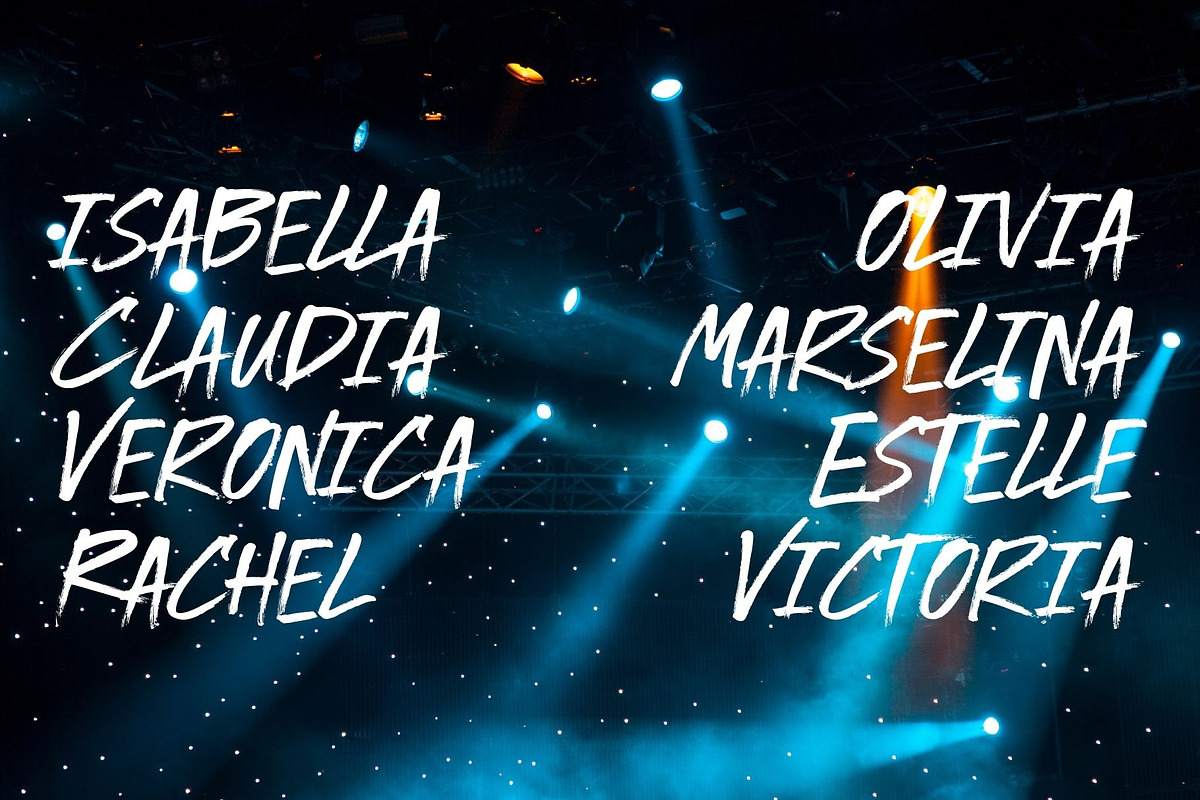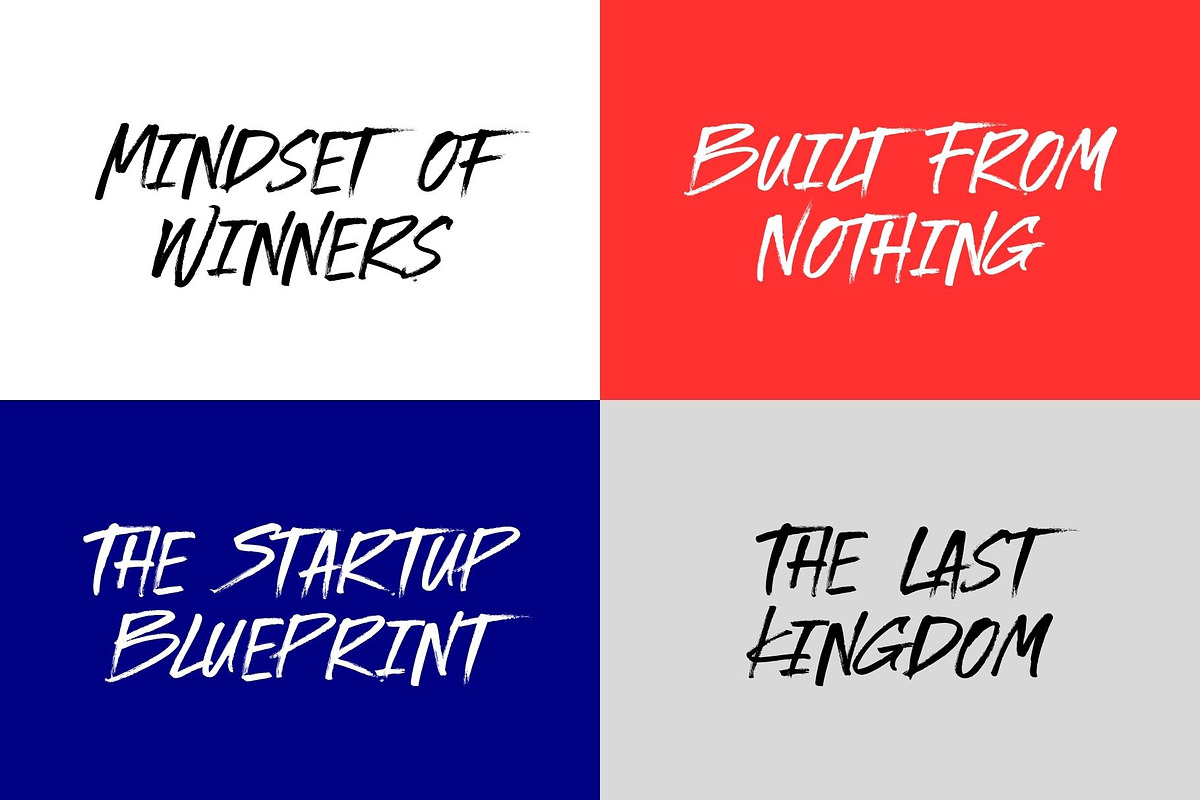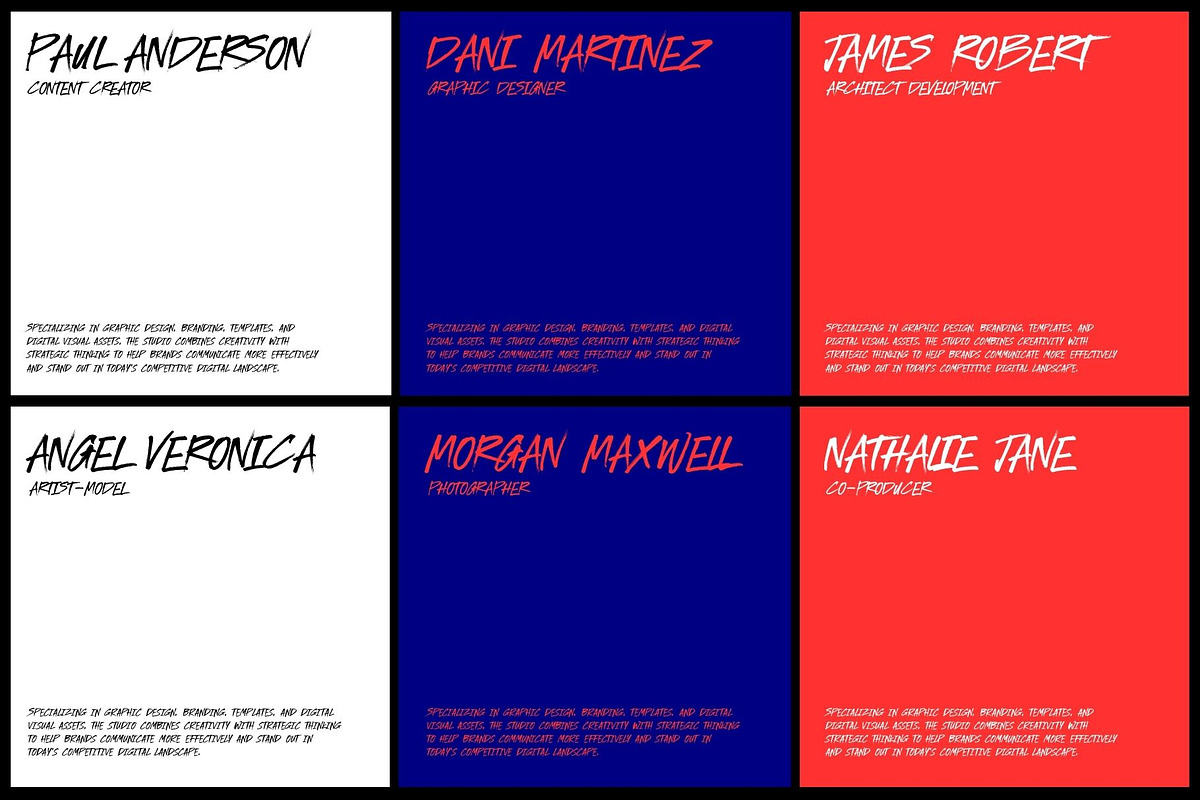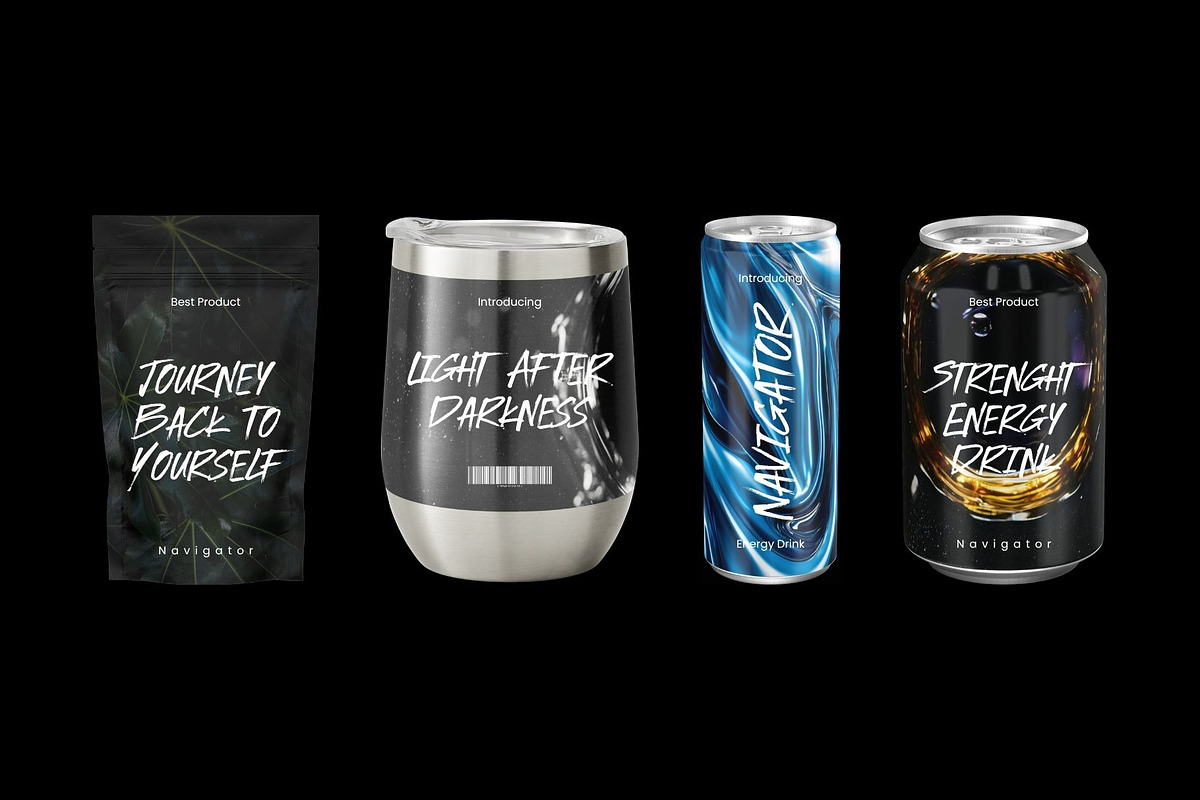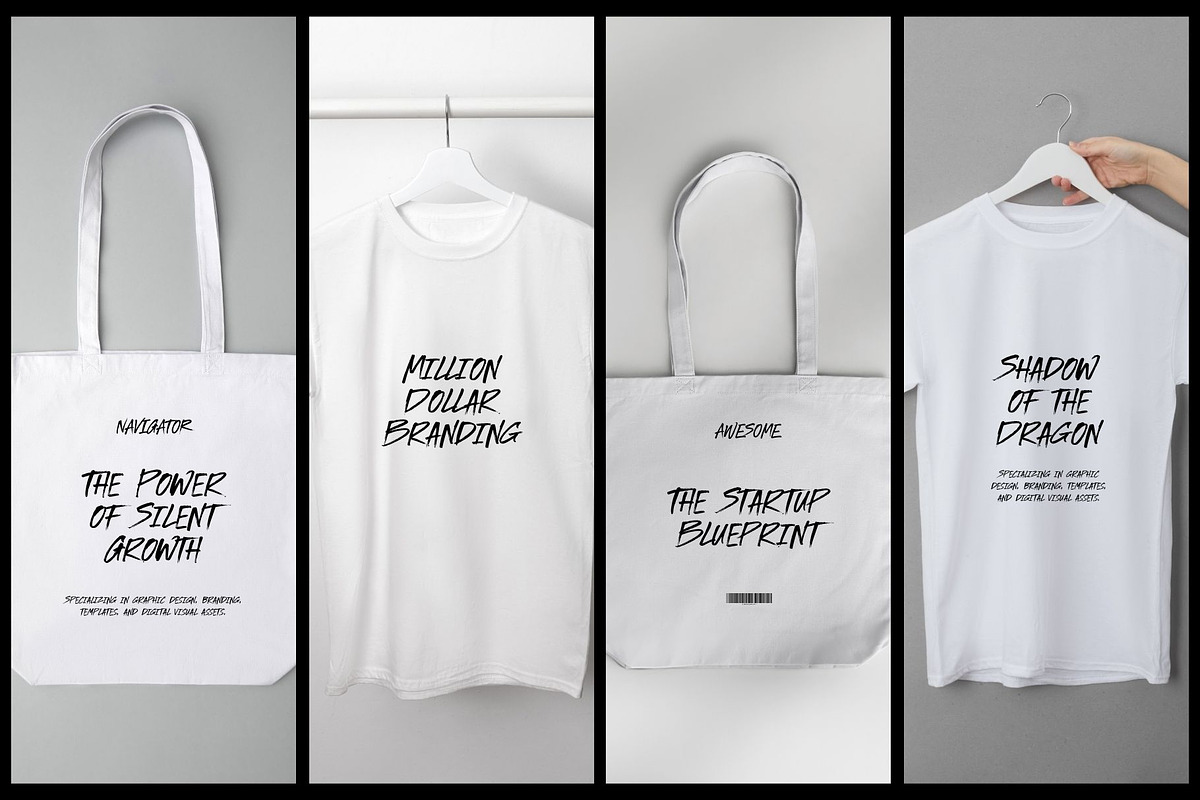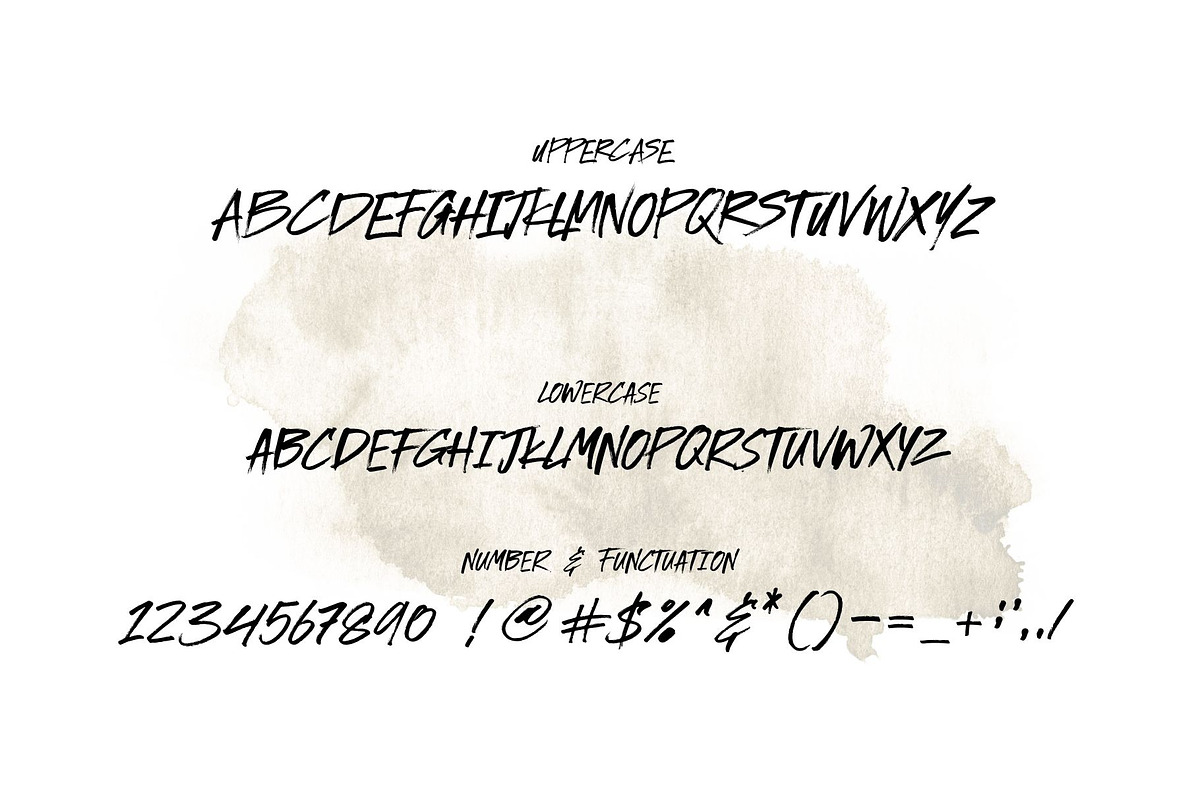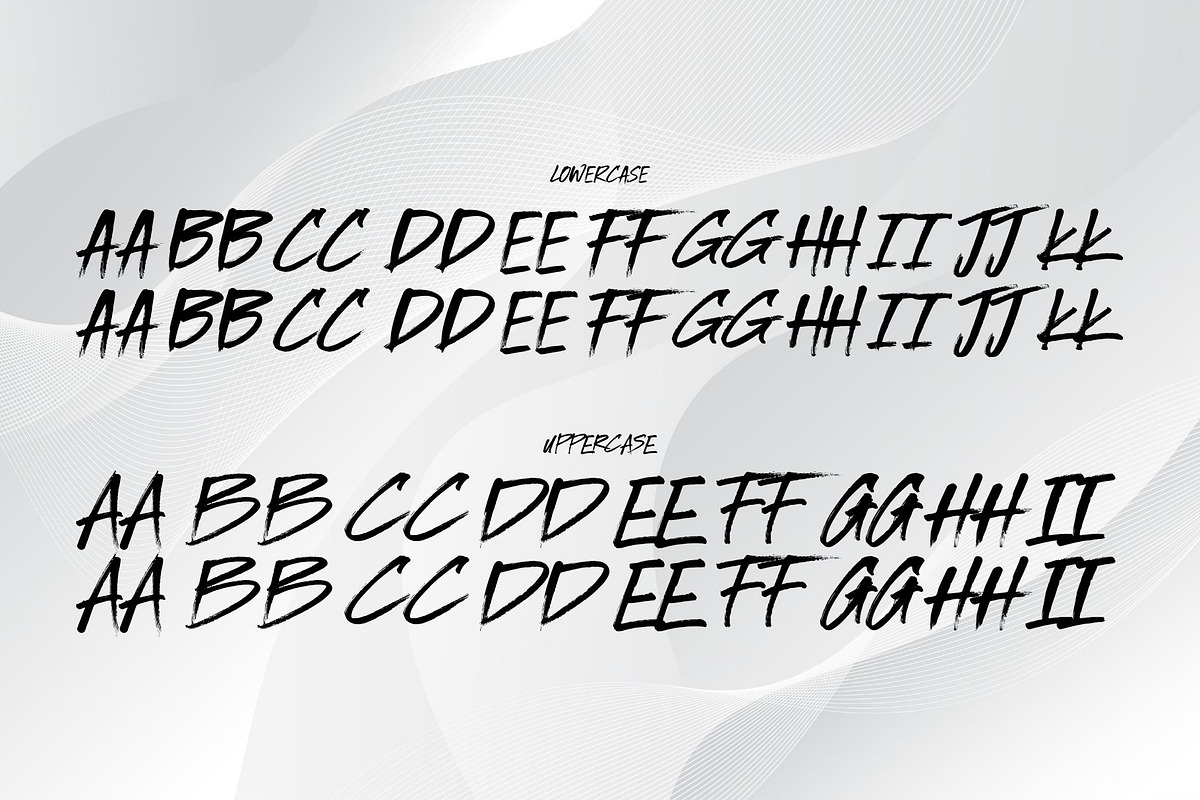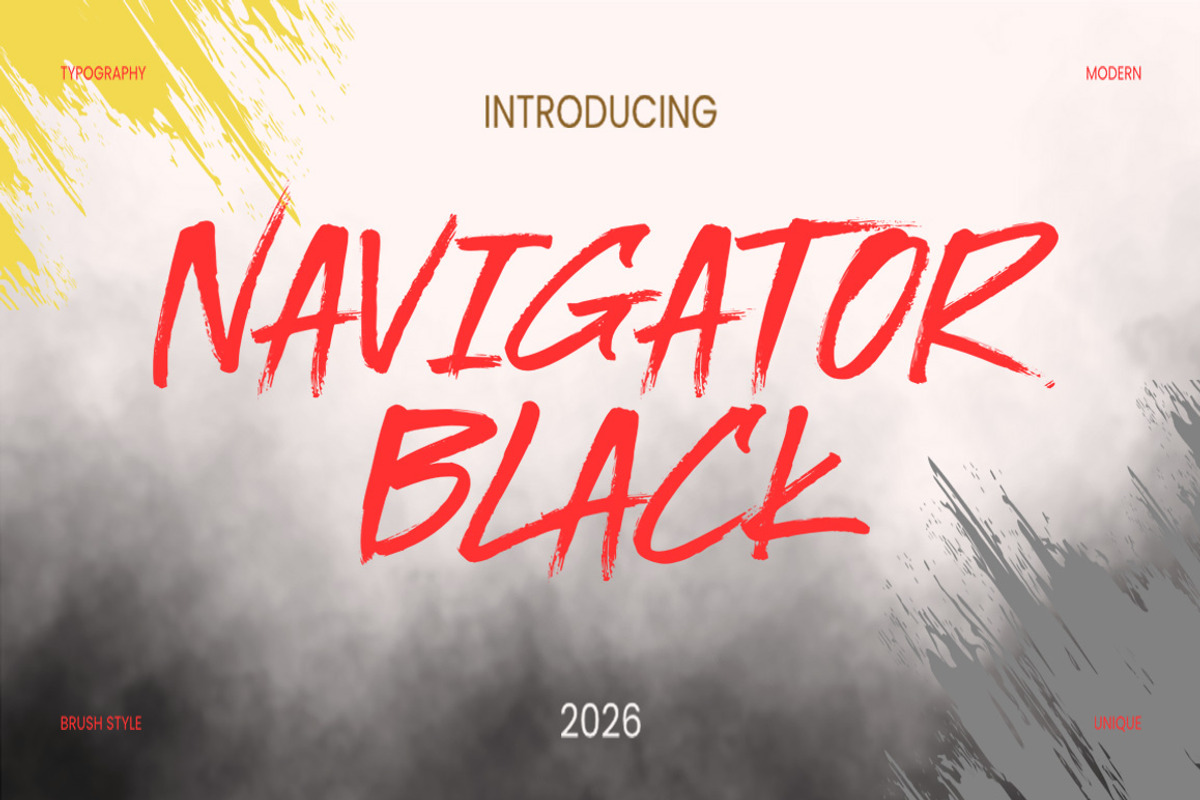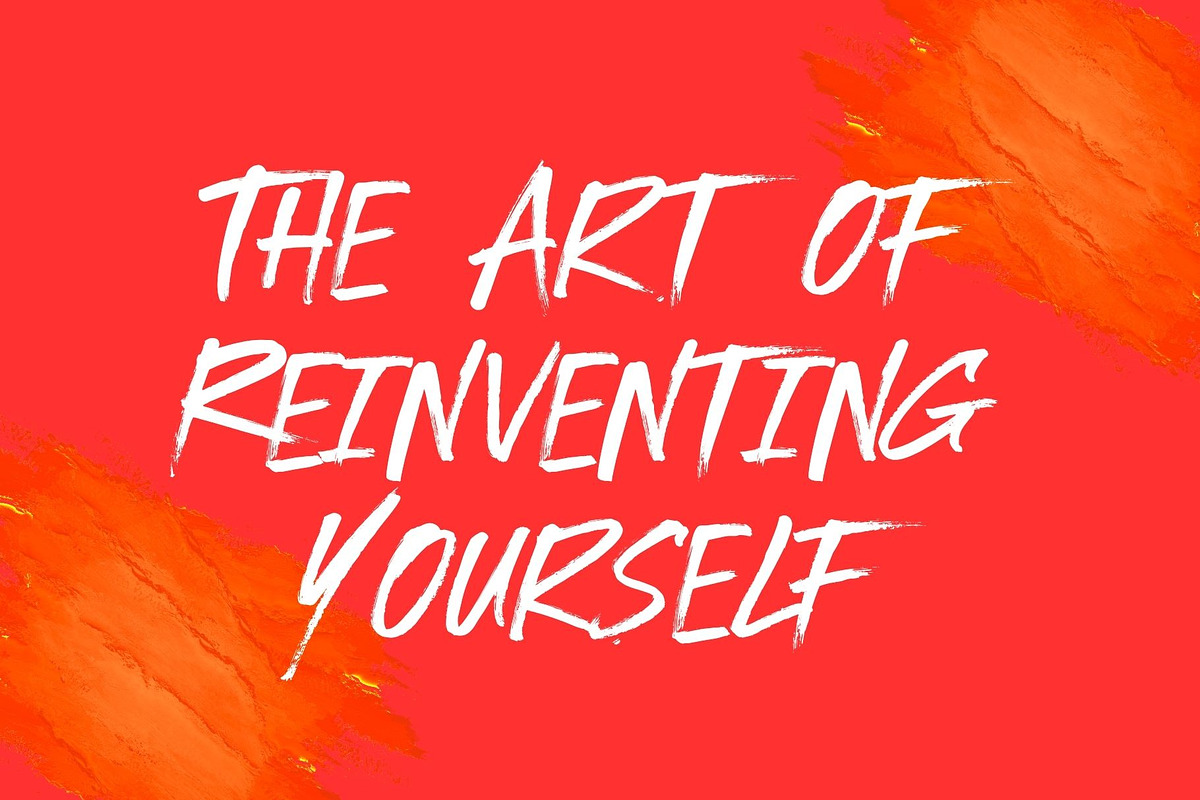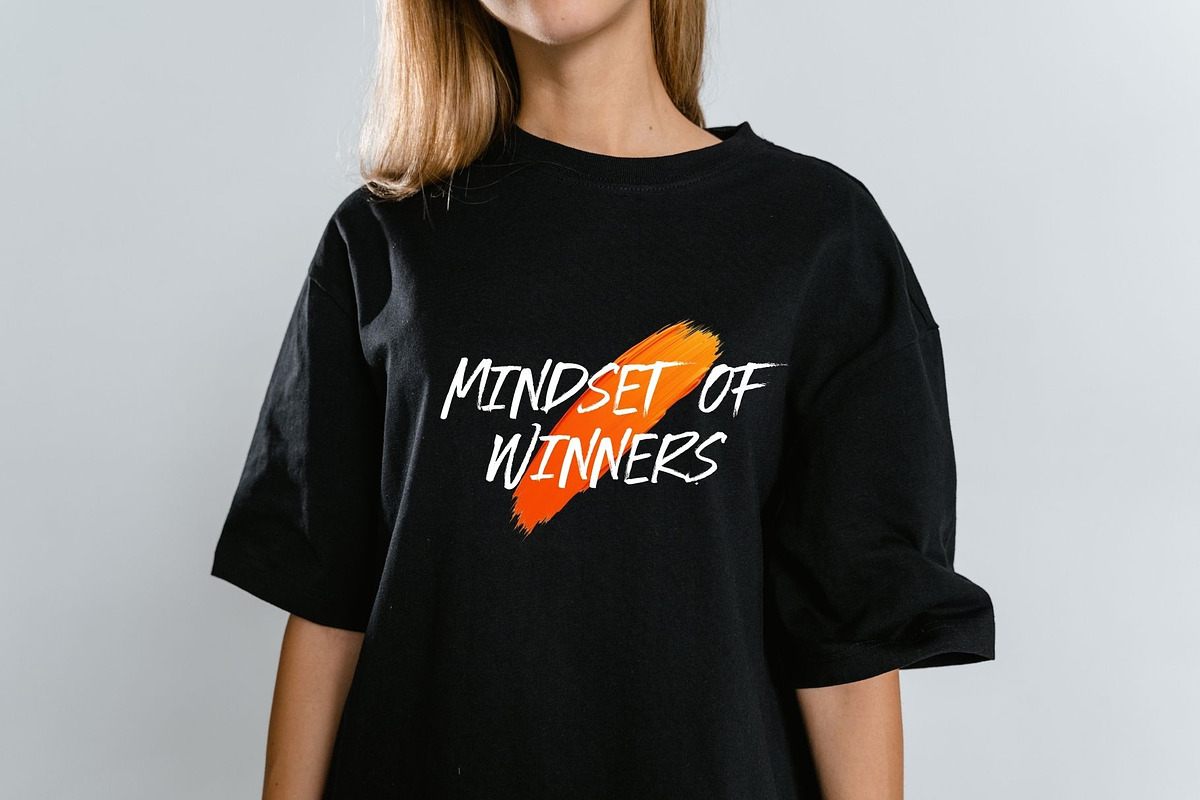
Nafigator Black
Nafigator Black is a modern casual handwritten font with a detailed and unique brushstroke texture. It can be used for a variety of purposes, such as titles, signatures, letterheads, signage, labels, newsletters, posters, logos, correspondence, wedding invitations, badges, and more.